Aphrodite
Classification: Script
Purpose: Display
A delightful script that exudes elegance through flowing curves and classic proportions. Ideal for luxury branding, refined headlines, and editorial designs with sophistication.
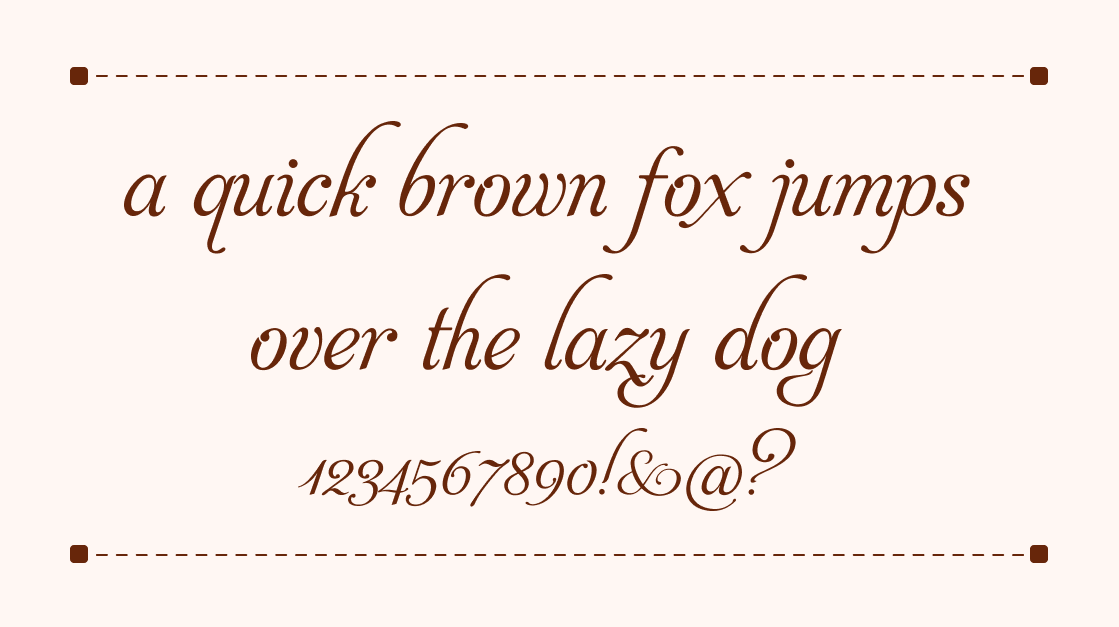
Acid Green
Acid Green bursts with energy through bold geometric shapes with a psychedelic flair, ideal for experimental graphics, posters, and modern branding that instantly attracts attention. Classification: Sans Serif Purpose: Display
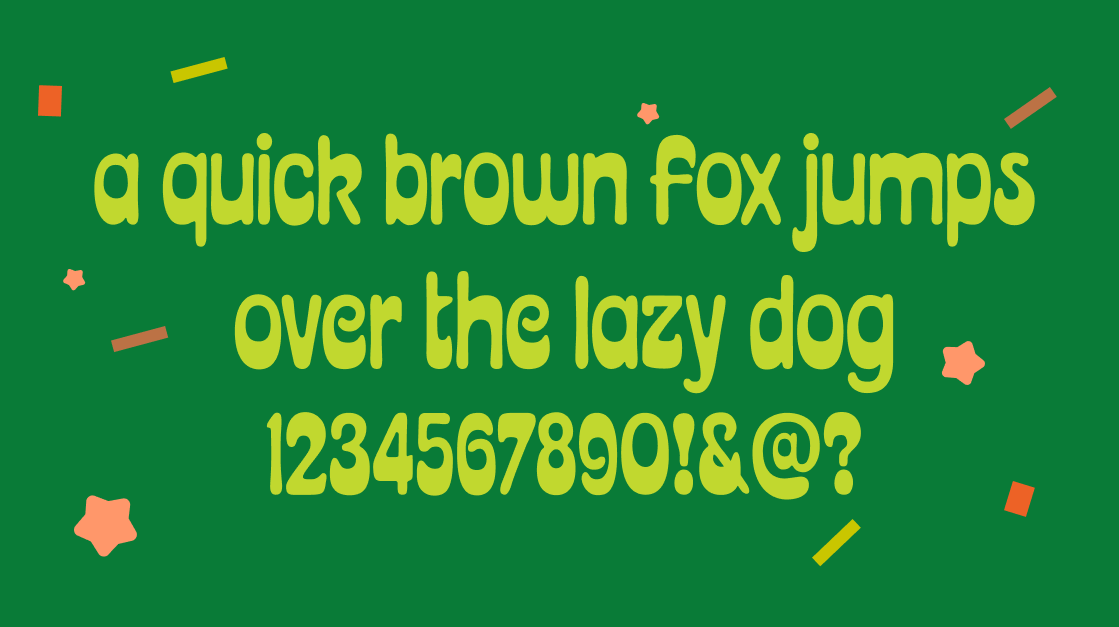
Combinado Serif
Classification: Serif
Purpose: Display
Combinado Serif blends modern structure with traditional serifs, offering versatility for long text, editorial layouts, and branding that balances classic and contemporary design.
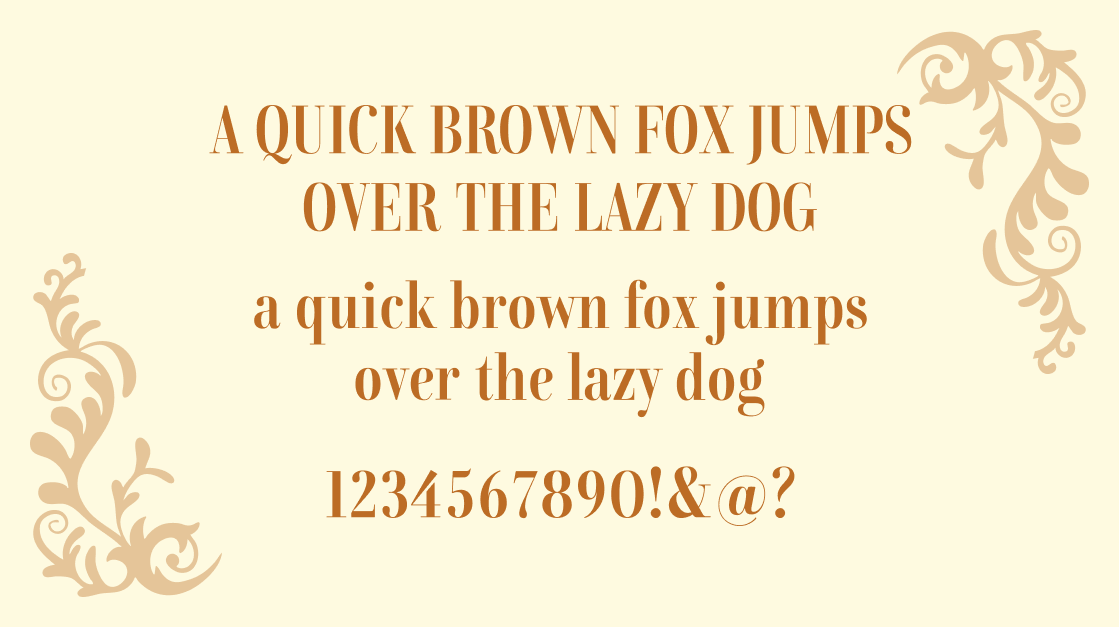
Glowworm
Classification: Rounded Sans Serif
Purpose: Display
Glowworm is luminous and friendly, a playful bubble- and worm-inspired display with rounded shapes and curves, perfect for children’s books, quirky branding, or approachable projects. Classification: Rounded Sans Serif Purpose: Display
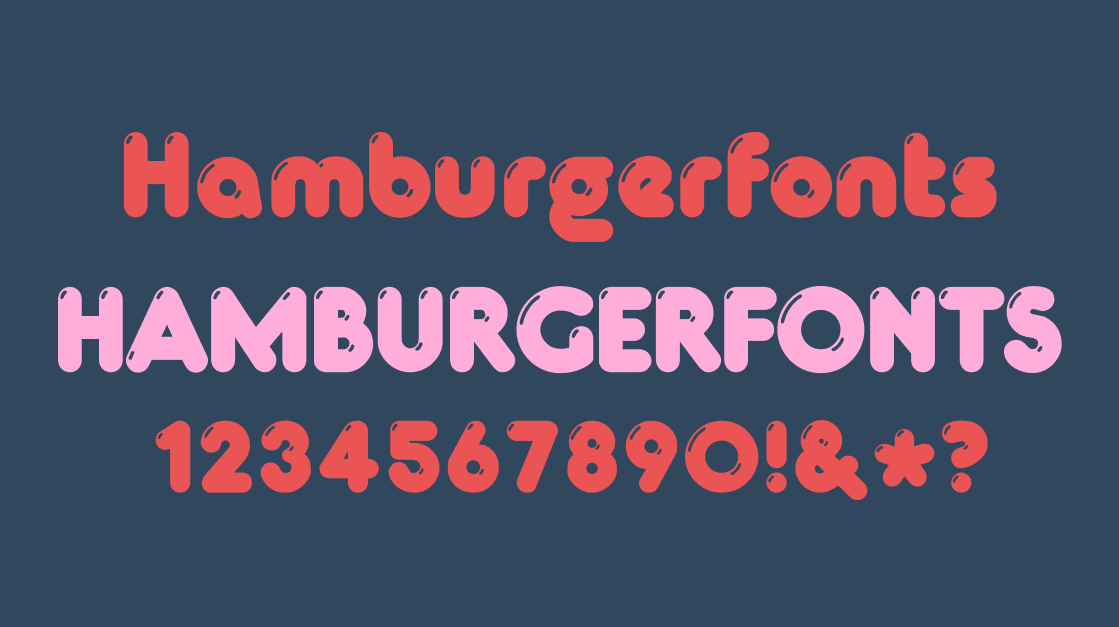
Beatle
Classification: Script
Purpose: Display
Beatle channels 1960s retro charm with bold, playful letterforms. Expressive swashes and delicate strokes make it ideal for posters, music branding, and nostalgic editorial designs.
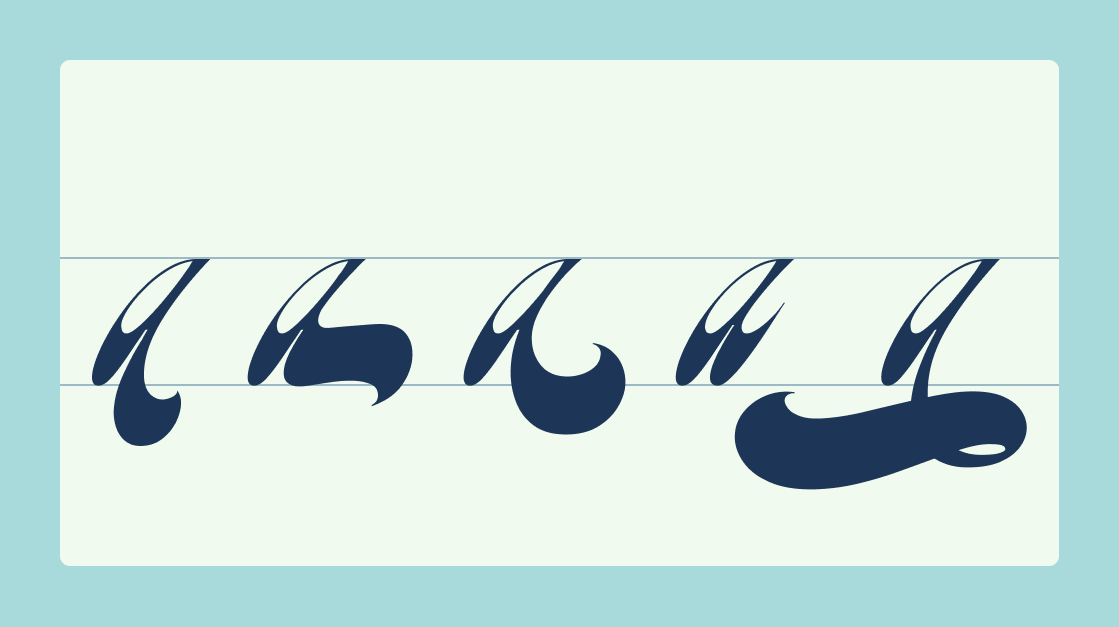
Citrine
Citrine shines with geometric clarity and subtle warmth, well-suited for minimal branding, UI/UX, and editorial typography that balances elegance, readability, and modern sophistication. Classification: Sans Serif Purpose: Text, Display
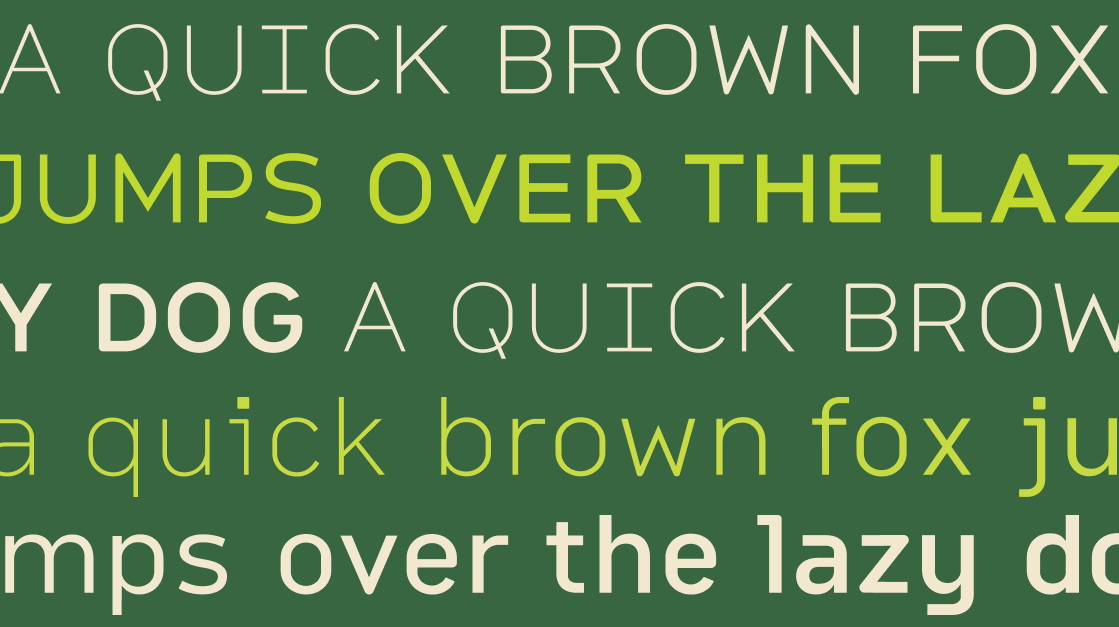
Curwen
Curwen blends organic calligraphic flourishes with structured serifs, offering decorative elegance for invitations, book covers, and designs that need charm, sophistication, and timeless appeal. Classification: Serif Purpose: Display
Alight Slab
Alight Slab delivers a light slab serif with crisp details and refined edges, ideal for headlines, posters, and branding that demands confidence, readability, and a modern yet grounded style. Classification: Slab Serif Purpose: Display
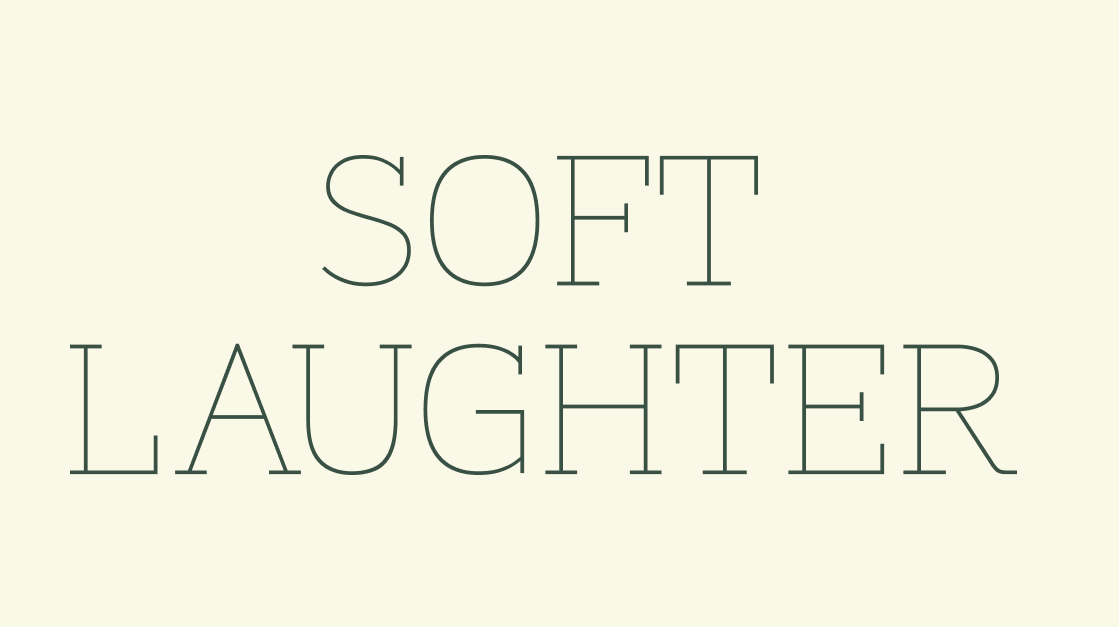
Archimedes
Classification: Wood Type Serif
Purpose: Display
Archimedes blends wood type proportions with distinctive screw head details, perfect for posters or editorial typography that combines quirky style with precision and craftsmanship.
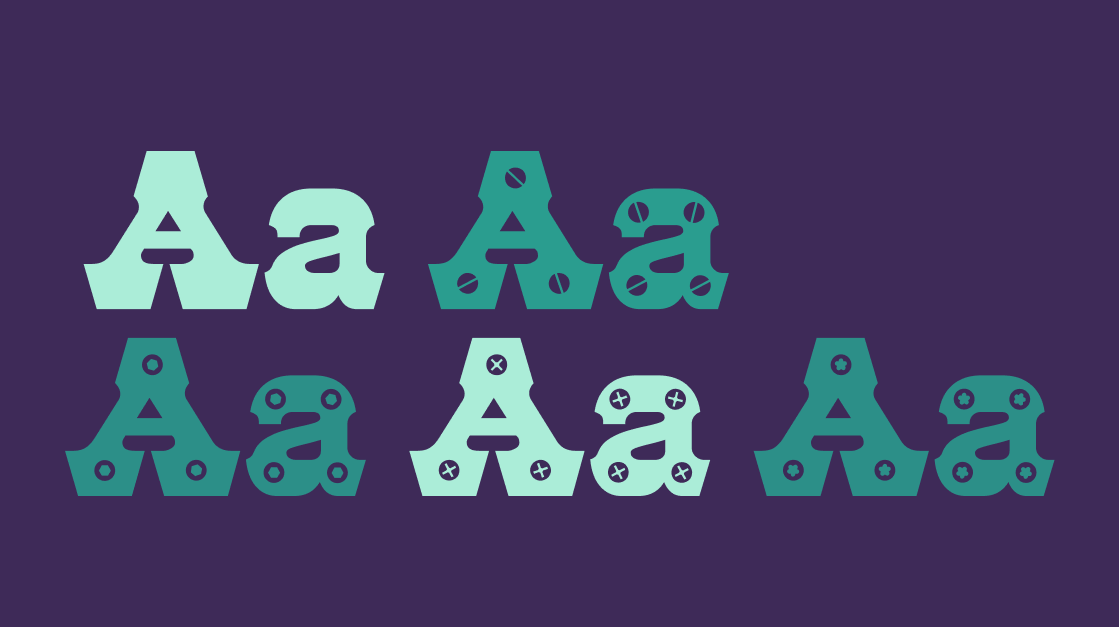
Bennet Banner
Classification: Serif
Purpose: Display
Bennet Banner is a refined serif superfamily with elegant curves and playful wedge serifs, ideal for editorial typography, banners, signage, and standout headings.
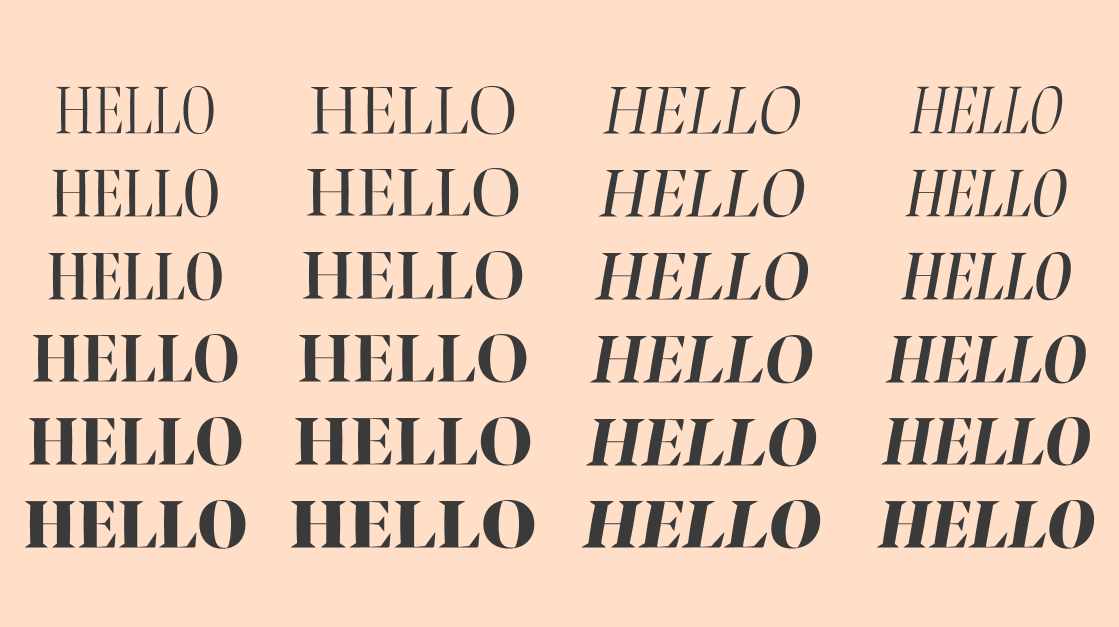
Dickens Tale
Classification: Serif
Purpose: Display
Inspired by copperplate engravings and Victorian calling cards, Dickens Tale evokes classic literature with intricate serifs and storybook charm, ideal for books, editorial, or historic designs.
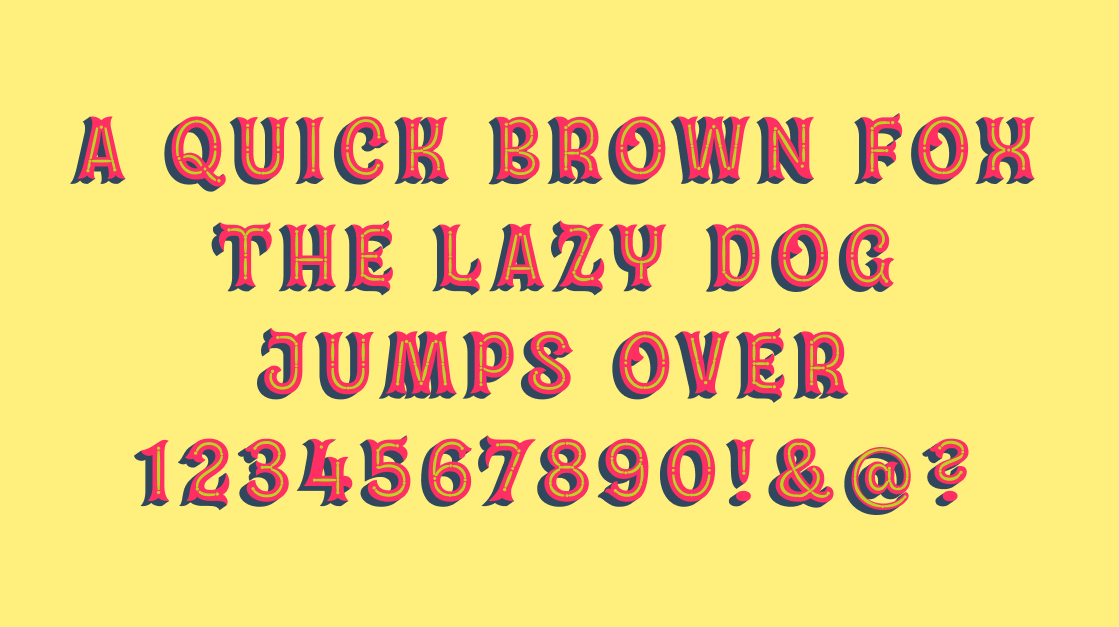
Alpha Roman
Classification: Serif
Purpose: Text, Display
Alpha Roman is an elegant calligraphic font featuring decorative lowercase drop caps, perfect for stylish paragraph openings with charm and visual impact.
Wrap-up